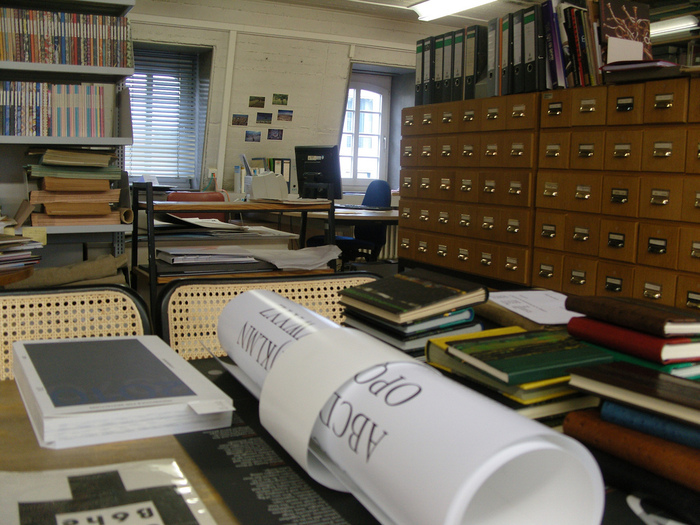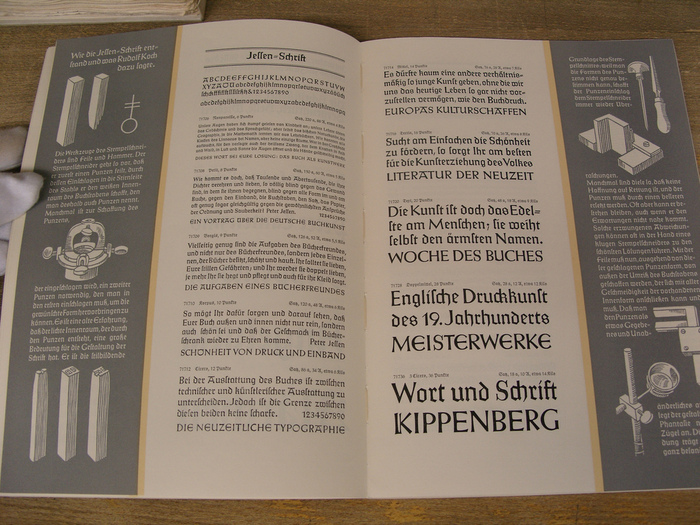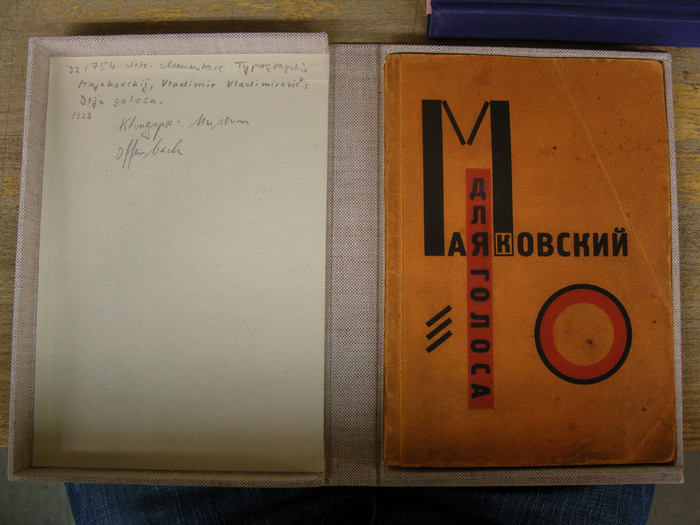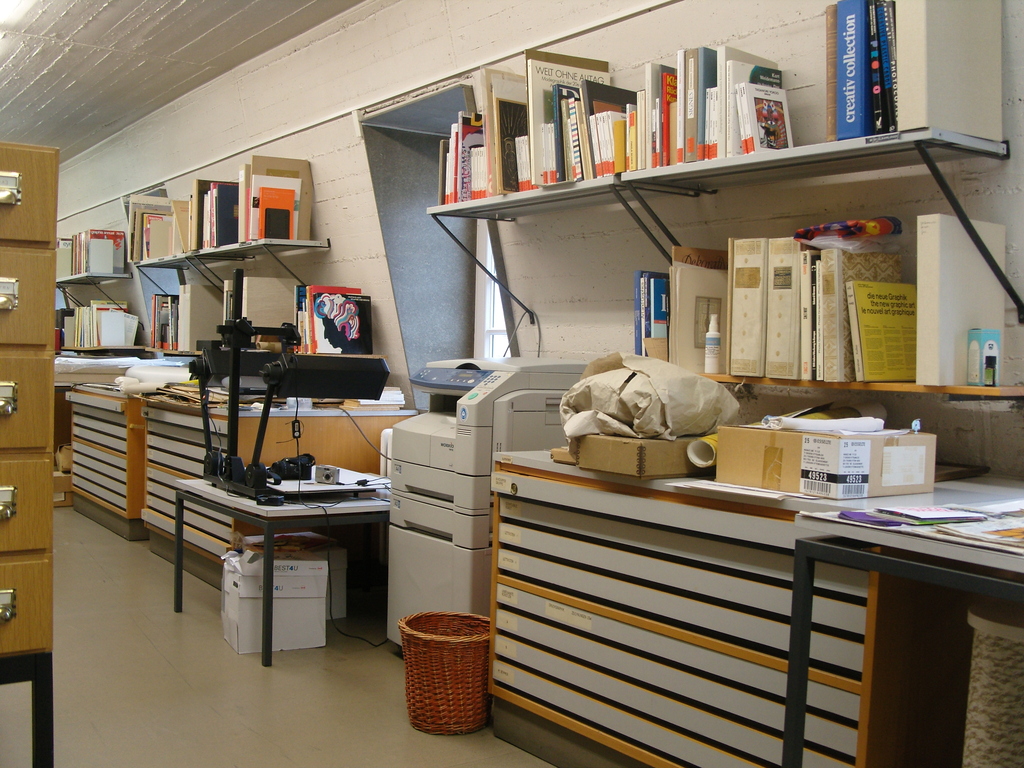
The styles of typefaces tend to stay within particular movements of design. The 10 typefaces I am creating are meant to break that.
The Driving Idea:
The styles of typefaces tend to stay within particular movements of design. The 10 typefaces I am creating are meant to break that mold.
The Game plan:
This past summer I received a grant from my school to study typography in Germany. In August I will be headed to Frankfurt for 1 week to study and examine type at the Klingspor Museum/Archive. Next I will be headed to Berlin to meet with local type designers/artist and to study progressive street typography along with environmental graphics. What I need help with is the production cost in materials, and cheap cost of living and travel during my time in Germany. The grant will only cover the cost of getting there.
From the research and inspiration I aquire in Germany, I will be creating 10 unique display style typefaces. Each typeface created will be unique and incorporate font characteristics from multiple movements of design.
Because I received the grant from my school I will be required to have this project completed by the 1st of April 2012 in order to present my work at the Undergraduate Research Conference as well as have content for a coinciding URC exhibition.
The Objective:
Mesh characteristics from multiple movements in Graphic Design's history to create 10 wholly unique display style typefaces. So the equation goes:
(Arts&Crafts) + (New Typography) + (Swiss Style) + (Post Modernism) + Germany + Thinking Wrong (Thanks Project M!) = a unique, hot off the press font built by a completely new way of looking at type (repeat 10 times)
or
Step 1: Research typography, Get to know the history, craft and skill behind each movement of design.
Step 2: Combine in a large brain, a few serifs, stems and feet, geometric shapes, slab serifs, odd ball glyphs and some postmodern features.
Step 3: Mix thoroughly until typeface is cohesive, unique and relevant.
Step 4: Repeat x10.
Step 5: Make the collateral. Fulfill pledge incentives.
Step 6: Deliver on promises.
The Timeline:
- Present - August 7th: Preliminary research and planning
- August 7th - 18th: Travel to, research and study in Frankfurt and Berlin
- August 18th - Feb 29th: Design work and creation of the fonts and collateral
- March 1st - April 7th: Production & Delivery of incentives, collateral and fonts, prep work for the exhibition and presentation of my work on the 7th.
- April 8th: Sleep.
This is what the archive looks like
These are some examples of the documents I will be studying
Simply put I will be traveling to Germany to do research. From the research I aquire I will be creating typefaces, i.e. a set of fonts.